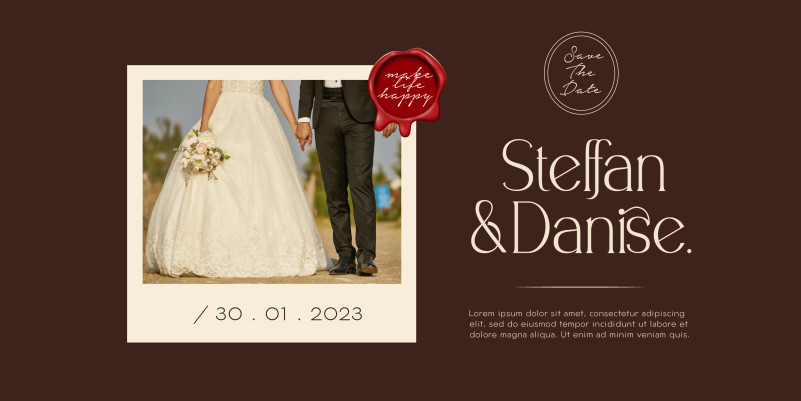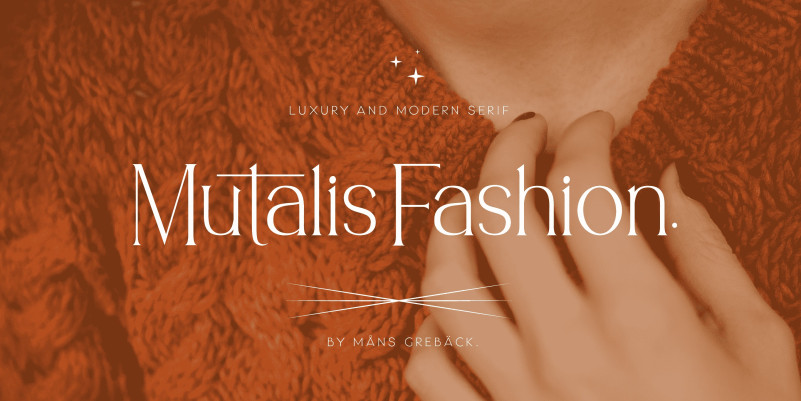
Mutalis Fashion Font
Mutalis Fashion Font, a luxury and modern serif font. It’s perfect for branding, product packaging, invitations, quotes, t-shirts, labels, posters, or any logo you want to develop. Make all your design projects more attractive, and take your designs to the next level with Mutalis Fashion!